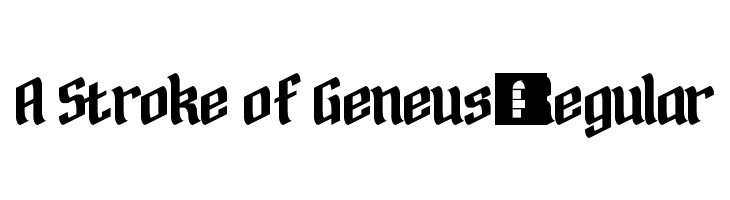
A traditional blackletter font with ornate, gothic letterforms.
A bold, Gothic-inspired font with sharp, angular strokes and high contrast.
A bold Gothic-style font with sharp, angular strokes and medieval influences.
A bold, ornate Blackletter font with intricate details and a historical feel.
A bold blackletter font with high contrast and intricate detailing.
A traditional blackletter font with intricate detailing and gothic elegance.